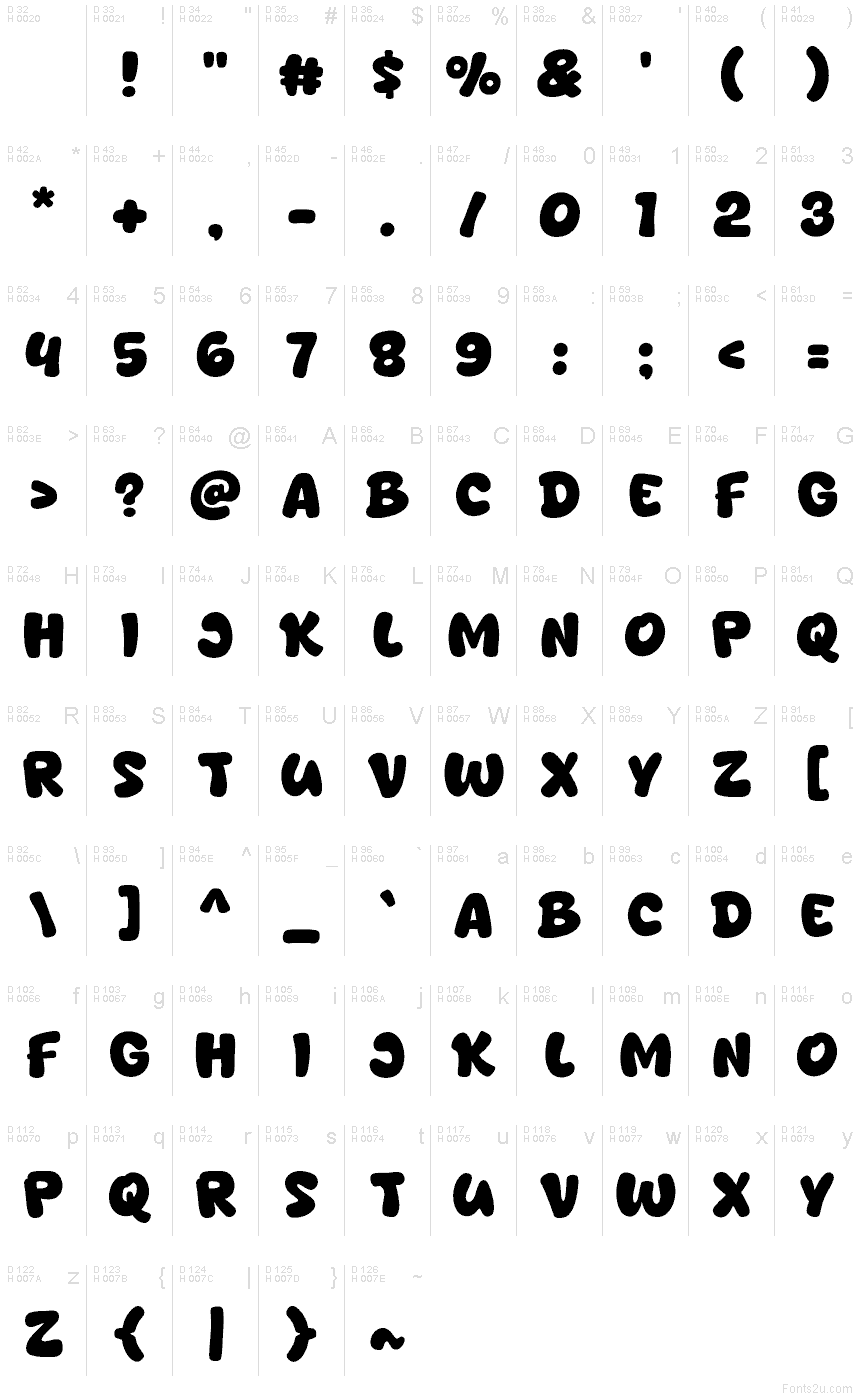
Julygo
Julygo font by Khurasan is a cartoon display typeface with perfectly smooth and organic letters. Each letter in this bold font has a retro style inspired by old music album covers from the 70s and beyond. Whimsical, cohesive, and rounded, all characters look natural and raw.
This free display font works on album covers, package design, branding, labeling projects, posters, typography assignments and competition submissions; everything that involves text!